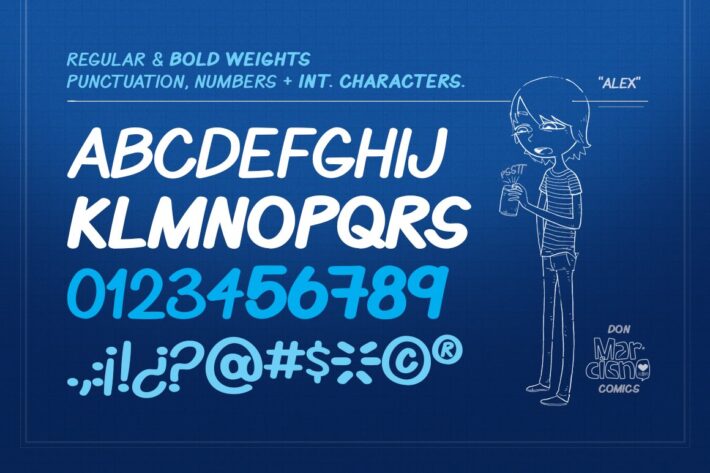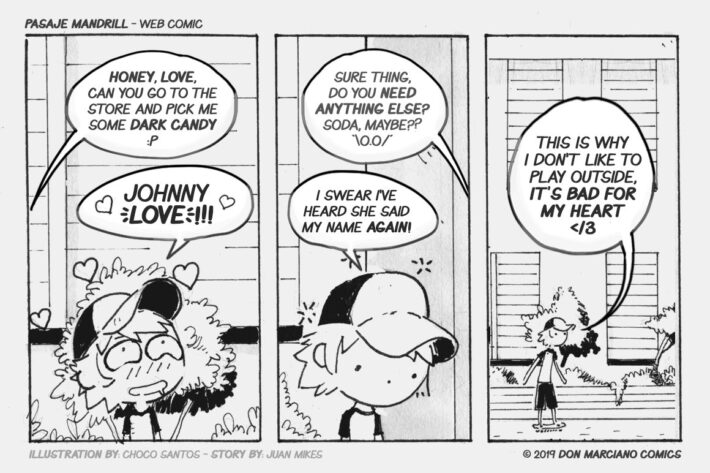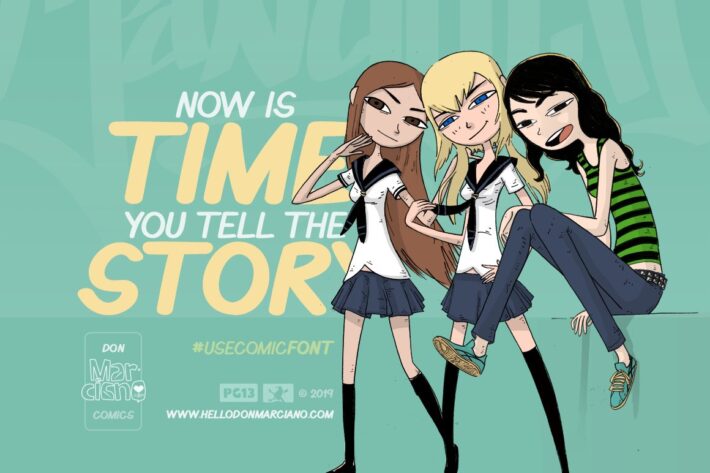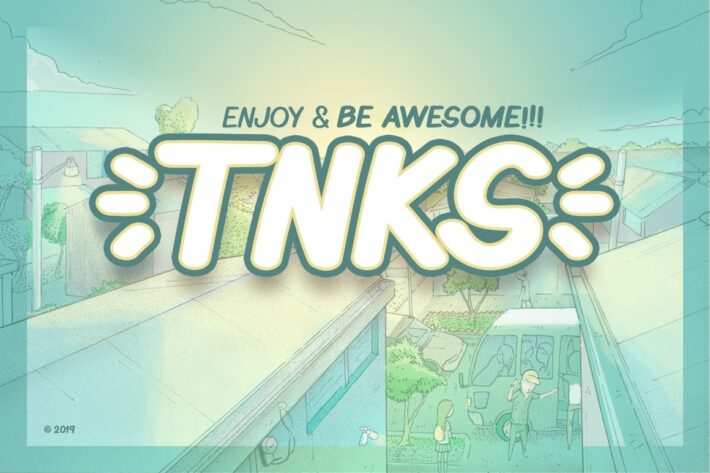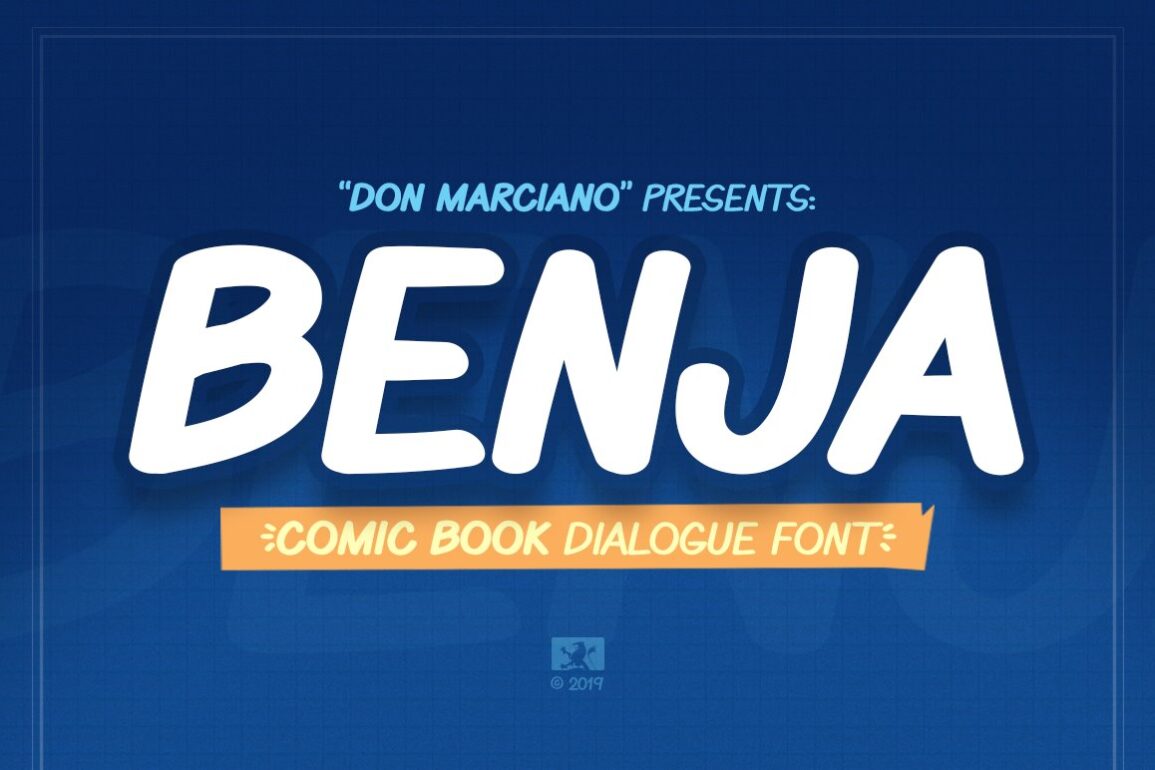
Benja Comic Book Free Font
Comic Book Free Font
Benja Comic Book Free Font is a typeface which is created for comic’s dialogue. In the beginning, this typeface was designed for web comics series called Pasaje Mandrill. The Benja comic book free font was made with love and care. It comes in two styles, Regular and Bold and both create a livelier flow within the dialogue fizzes.
Therefore, from the pencil lines, colors and dialogue layers of a fun and charming comic series comes a simple yet aesthetic typeface that wants to tell the story, you want to tell. Thanks to Don Marciano for creating and sharing this free demo.